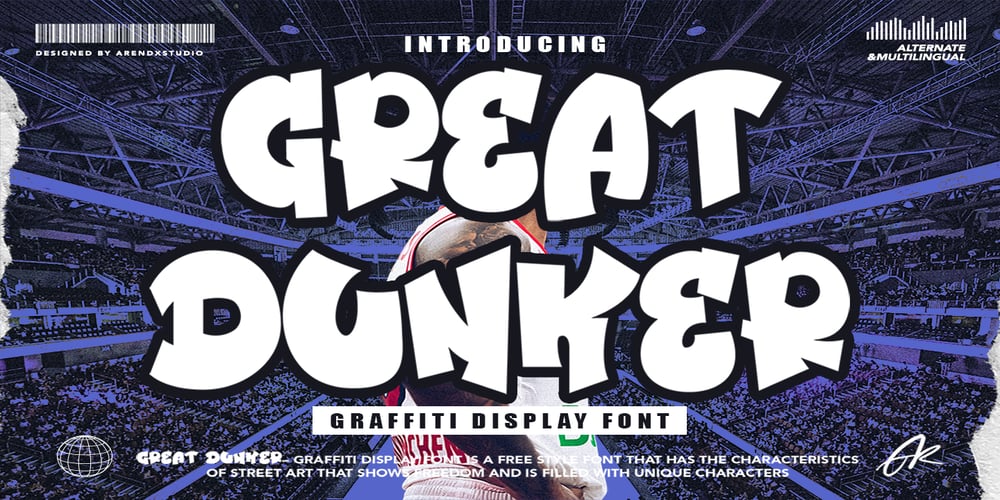
Great Dunker Font Family was designed by Asep Rendi and published by Arendxstudio. Great Dunker contains 2 styles and family package options. Great Dunker Graffiti Font is a free style font that has the characteristics of street art that shows freedom and is filled with unique charactersFeatures : • Character Set A-Z • Numerals & Punctuations (OpenType Standard) • Accents (Multilingual characters) Outline